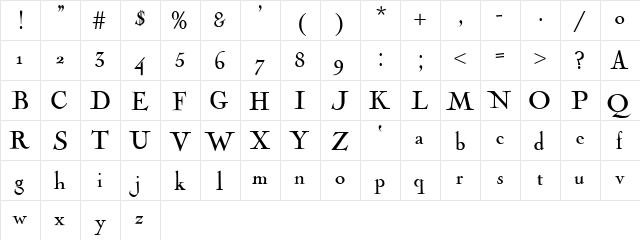
Cochin-Archaic Regular
Design Context for Cochin-Archaic Typeface
Cochin-Archaic takes a measured approach to typography — its balanced proportions and neutral character make it a reliable workhorse for both digital and print work.